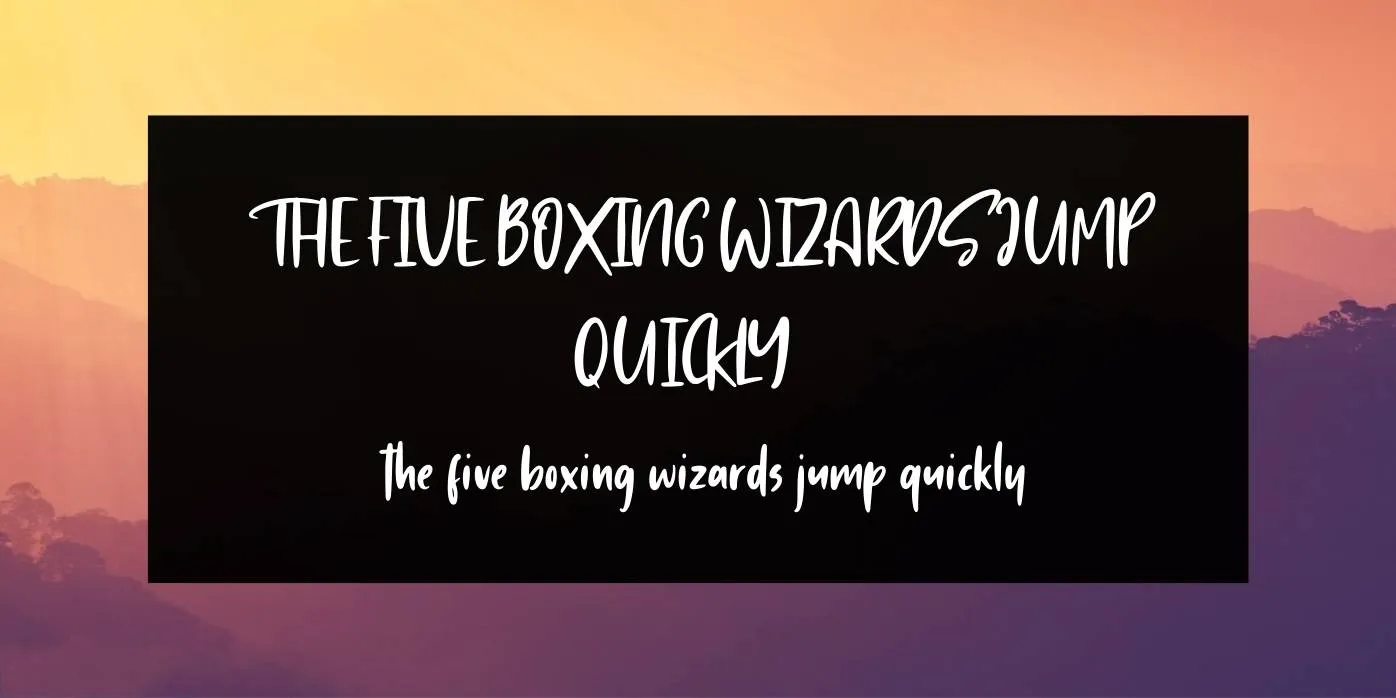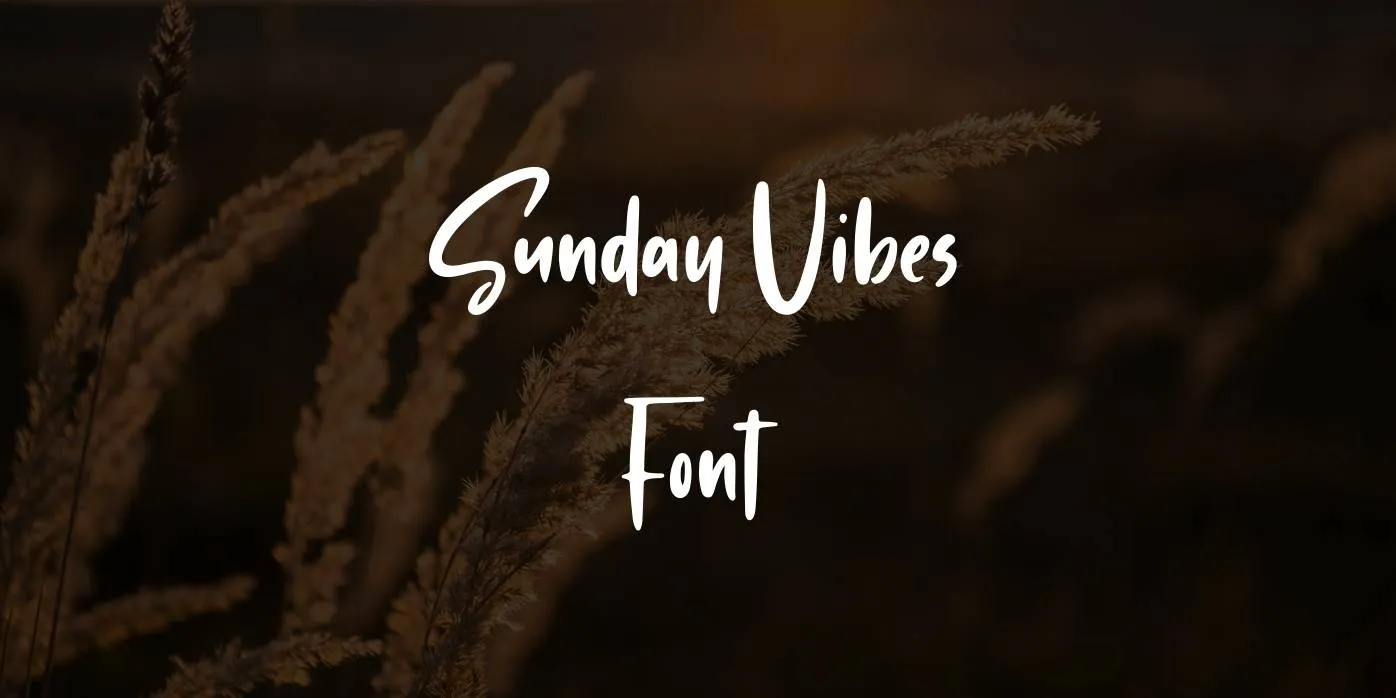
Sunday Vibes Font
Sunday Vibes Font was created by J.P. Meyerson in 2017. It is a hand-drawn, script-typeface with a unique, playful style. The letters have a bouncy, fun quality that makes them perfect for headlines and other attention-grabbing situations.
This font is available in both regular and italic styles and includes a full set of Latin character glyphs. J.P. Meyerson is a freelance graphic designer and illustrator based in New York City. His work has been featured in publications such as The New York Times, Wall Street Journal, and Forbes.
It is also known for its immense language support same to the plantin font and it can support many different international alphabets. This typeface style has been very popular in recent years and has been used by major brands including MTV. This font is a great choice for any project that needs a touch of playfulness and personality.